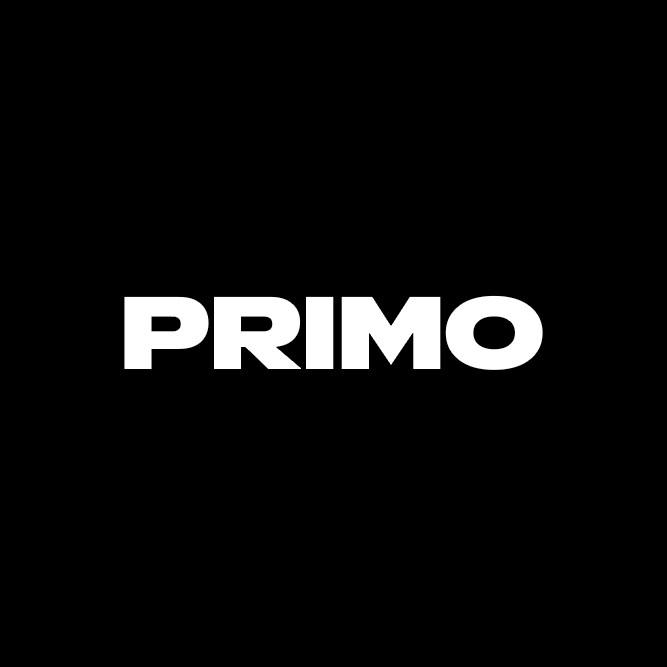
Superset Font Description
Superset is a strong display font. This fantastic font is best suited for headlines of all sizes, as well as for blocks of text that have both maximum and minimum variations. Whether it’s for web, print, moving images or anything else – Superset will look spectacular.